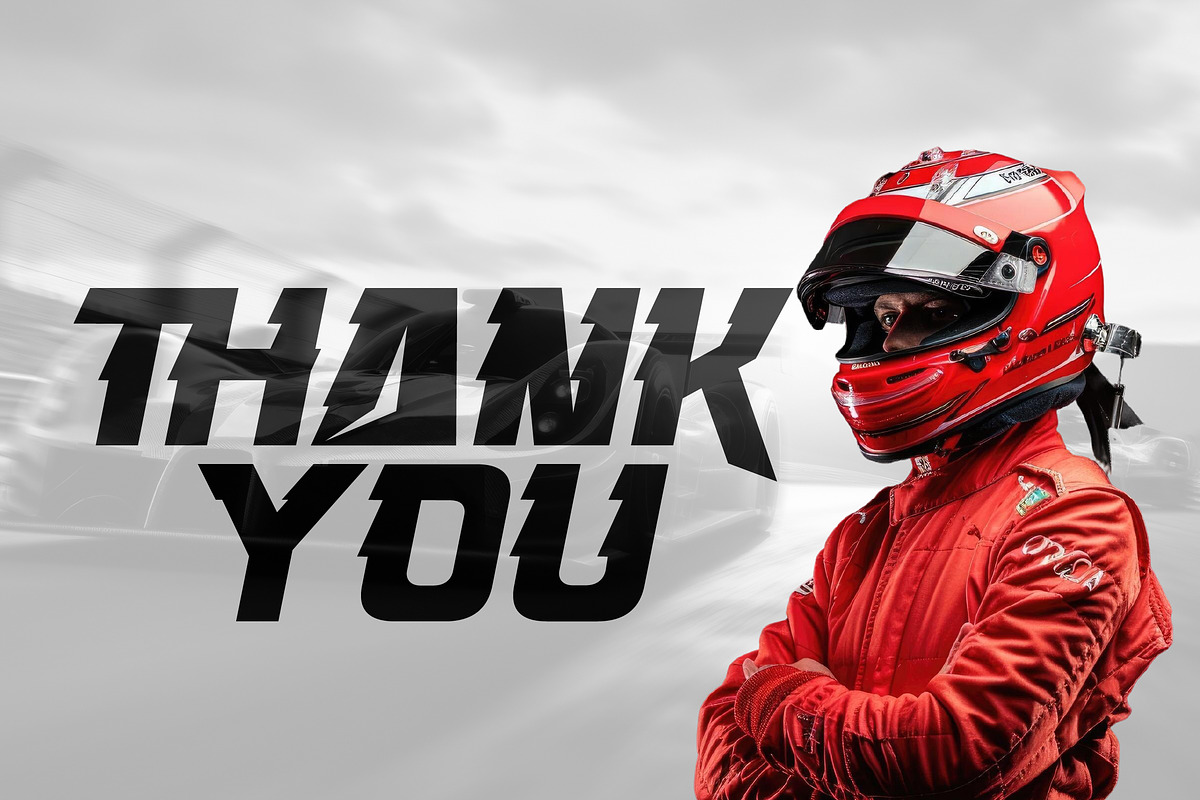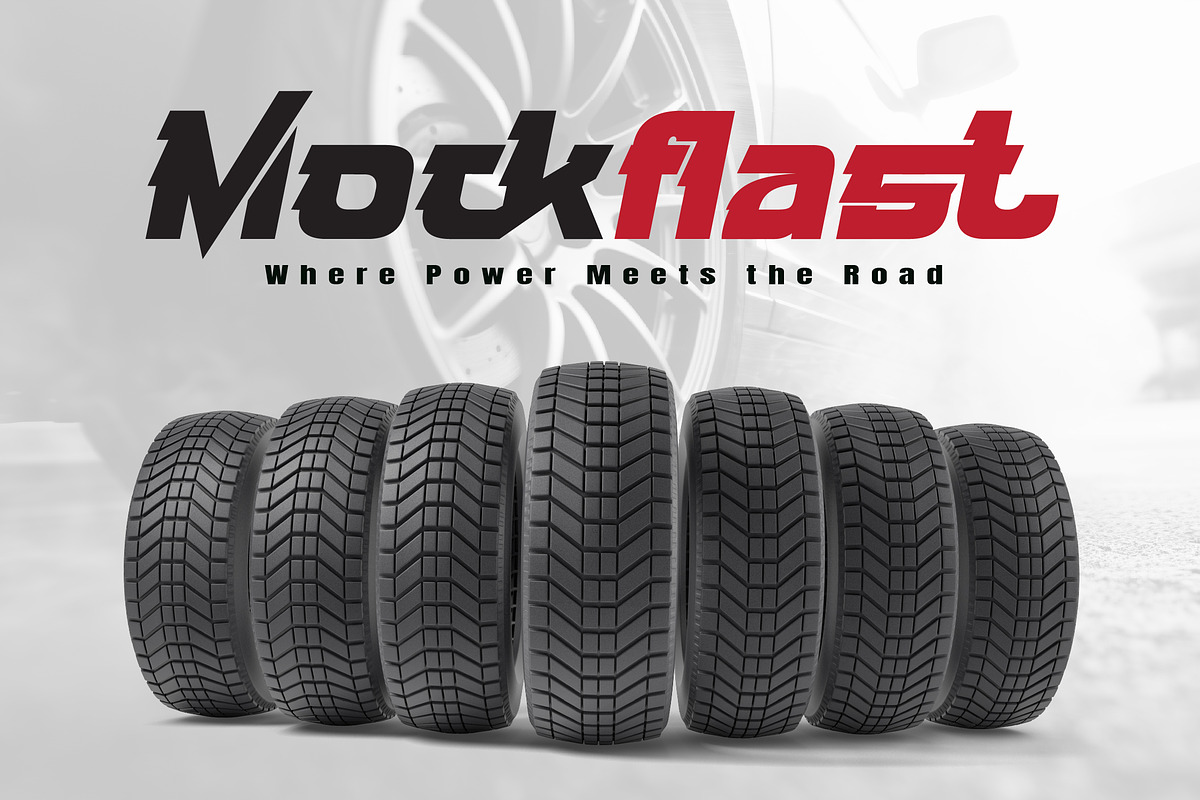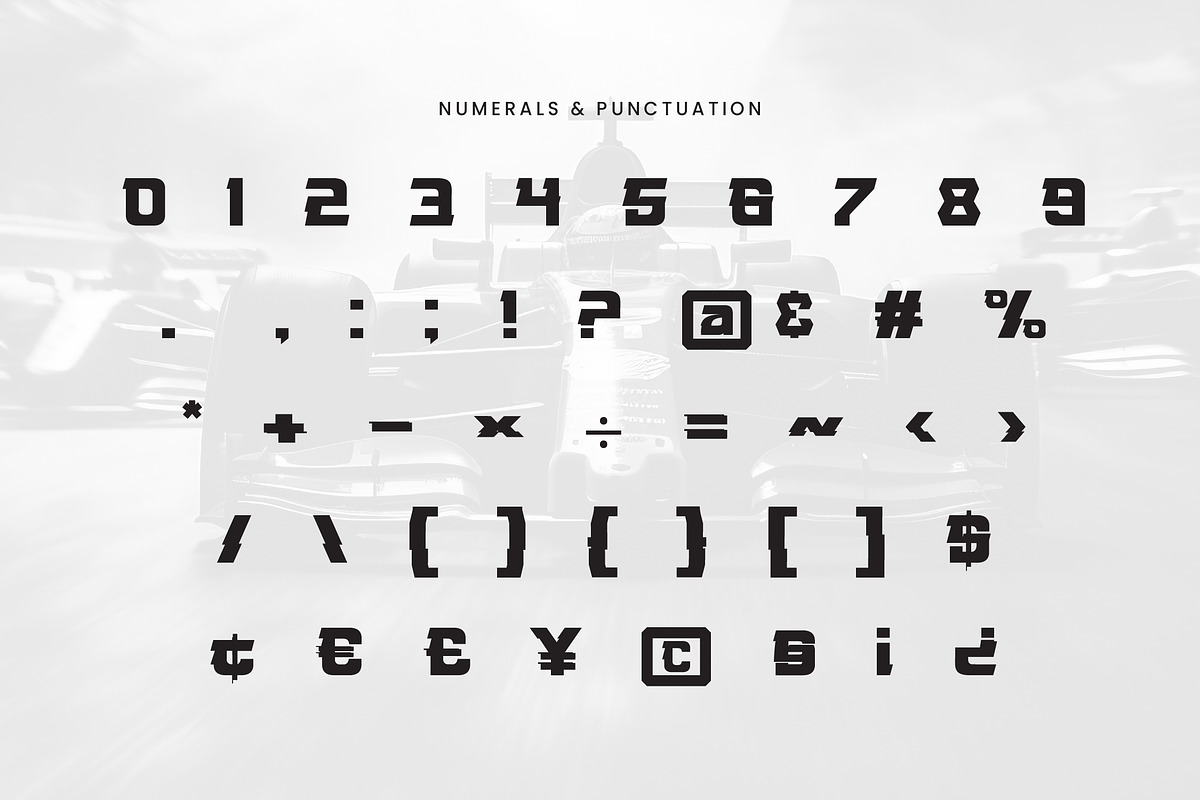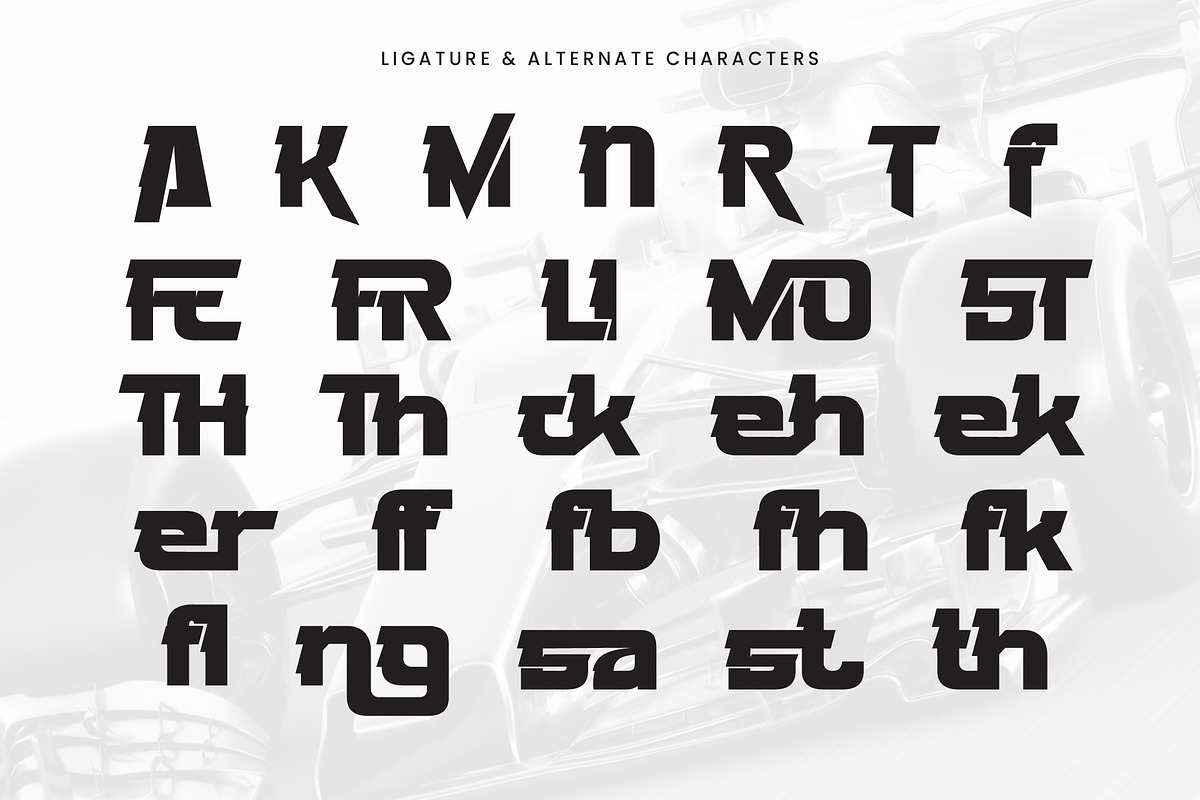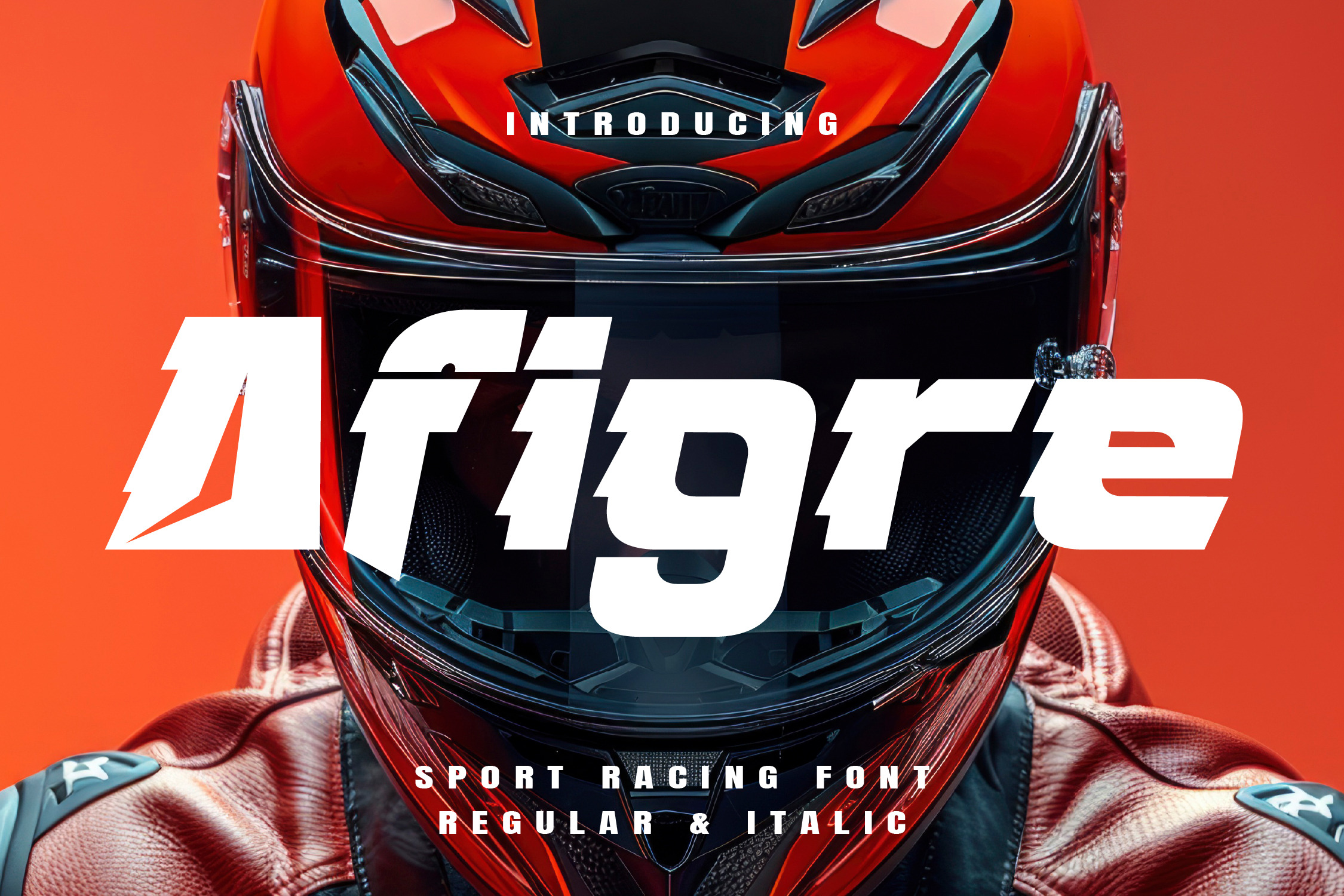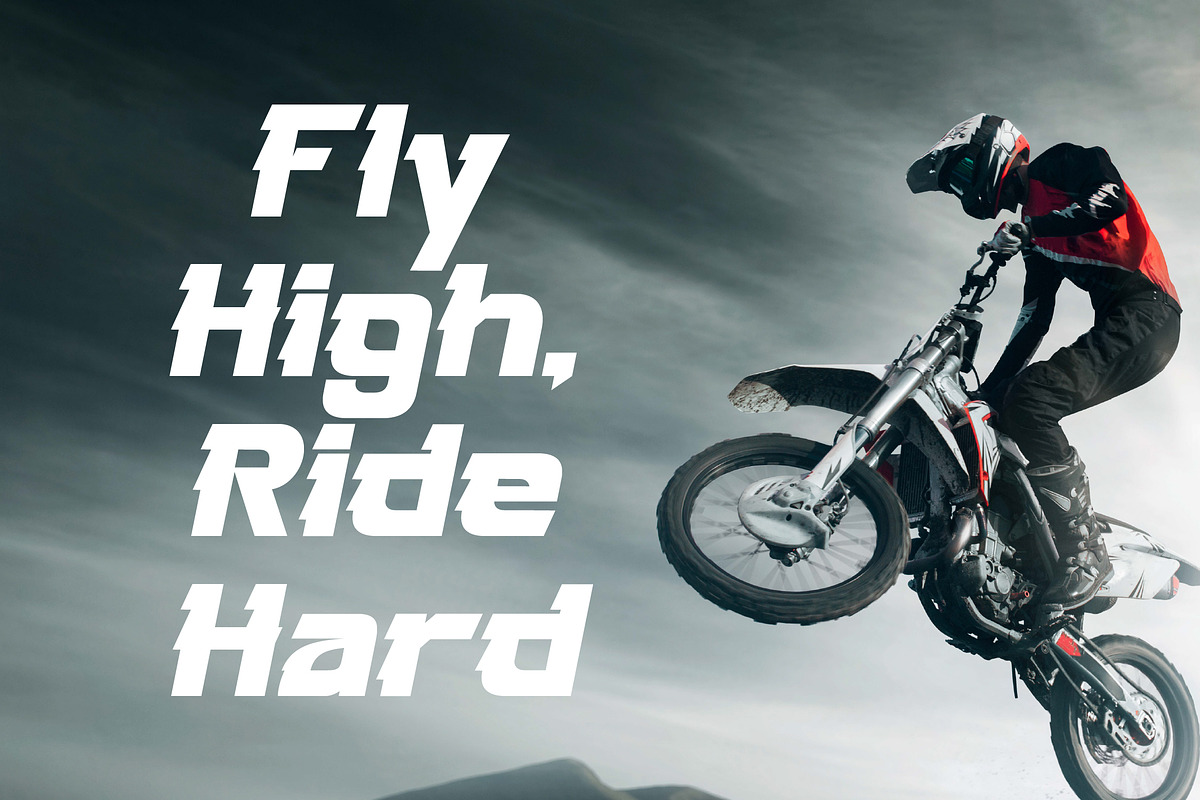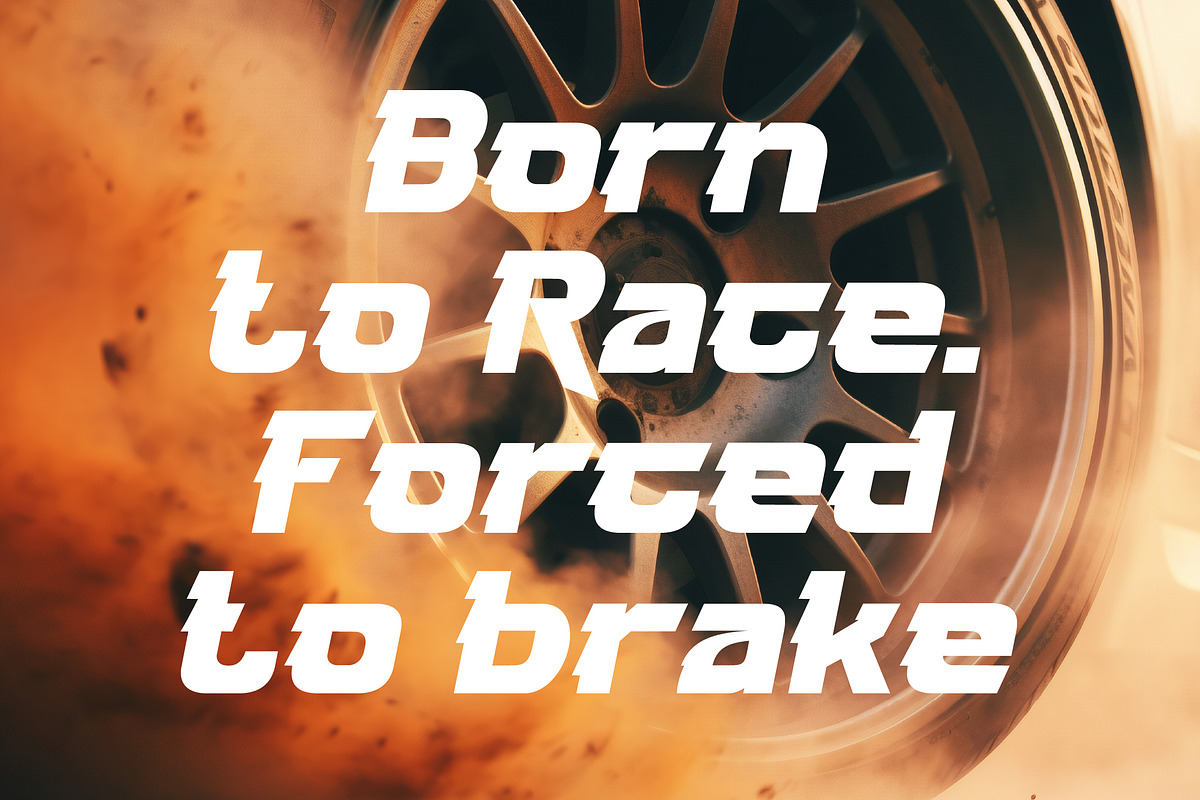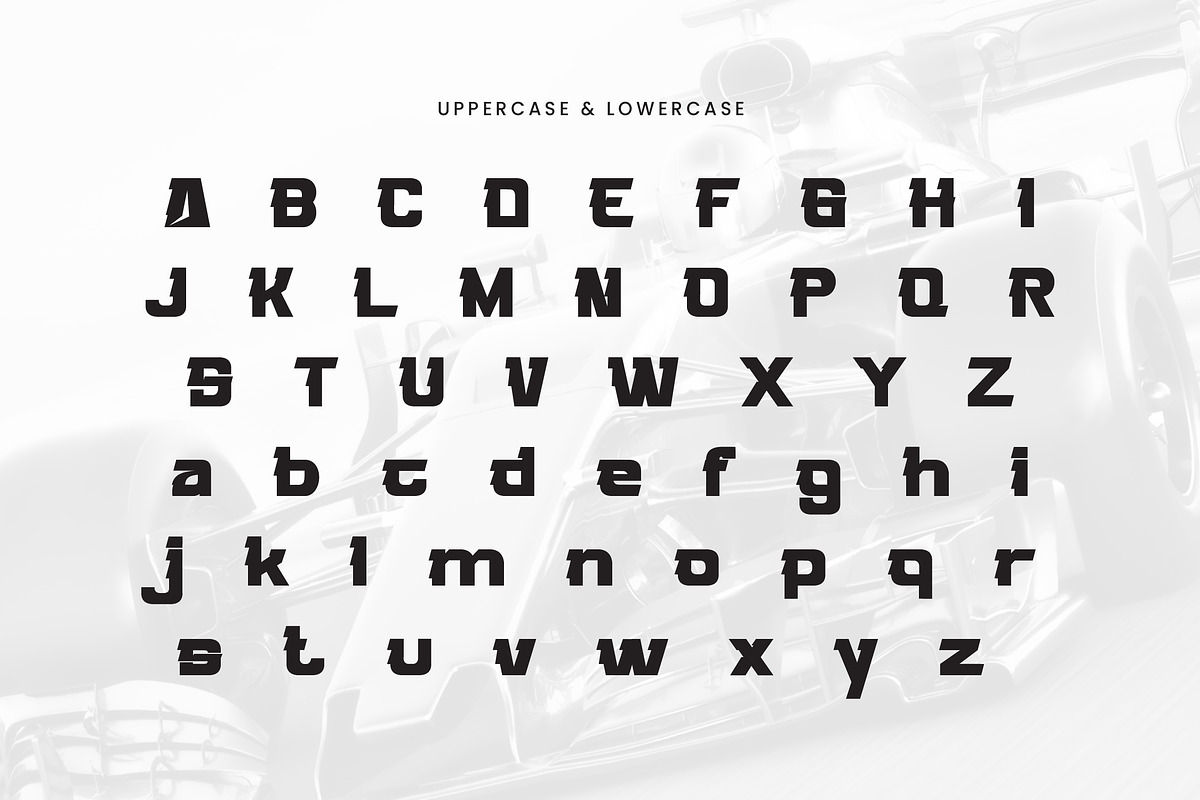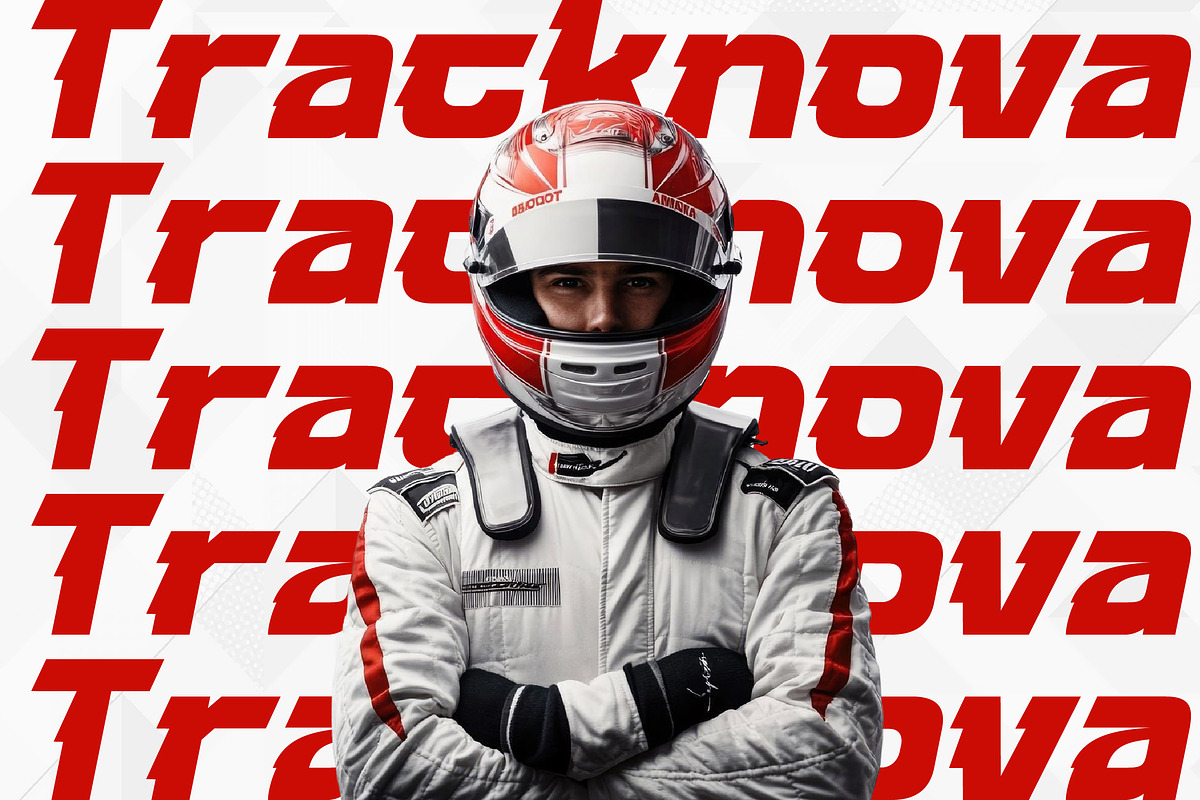
Afigre Racing Font
Afigre is a bold and aggressive display font crafted for speed, power, and precision. Inspired by the high-octane world of motorsports, Afigre combines sharp cuts, slanted angles, and aerodynamic forms to deliver a striking typographic presence.
This font is perfect for racing posters, automotive branding, esports graphics, apparel design, and any project that needs a fast and futuristic vibe.
What makes Afigre stand out:
- Strong, dynamic letterforms with sharp edges and high impact.
- Two styles included: Regular & Italic for design flexibility.
- Futuristic and masculine appearance, ideal for speed-driven industries.
- Stylized cuts and forward motion built into every character.
- Uppercase & Lowercase Letters
Perfect for: Motorsport visuals, esport logos, speed-themed headlines, product branding, social media graphics, and more.